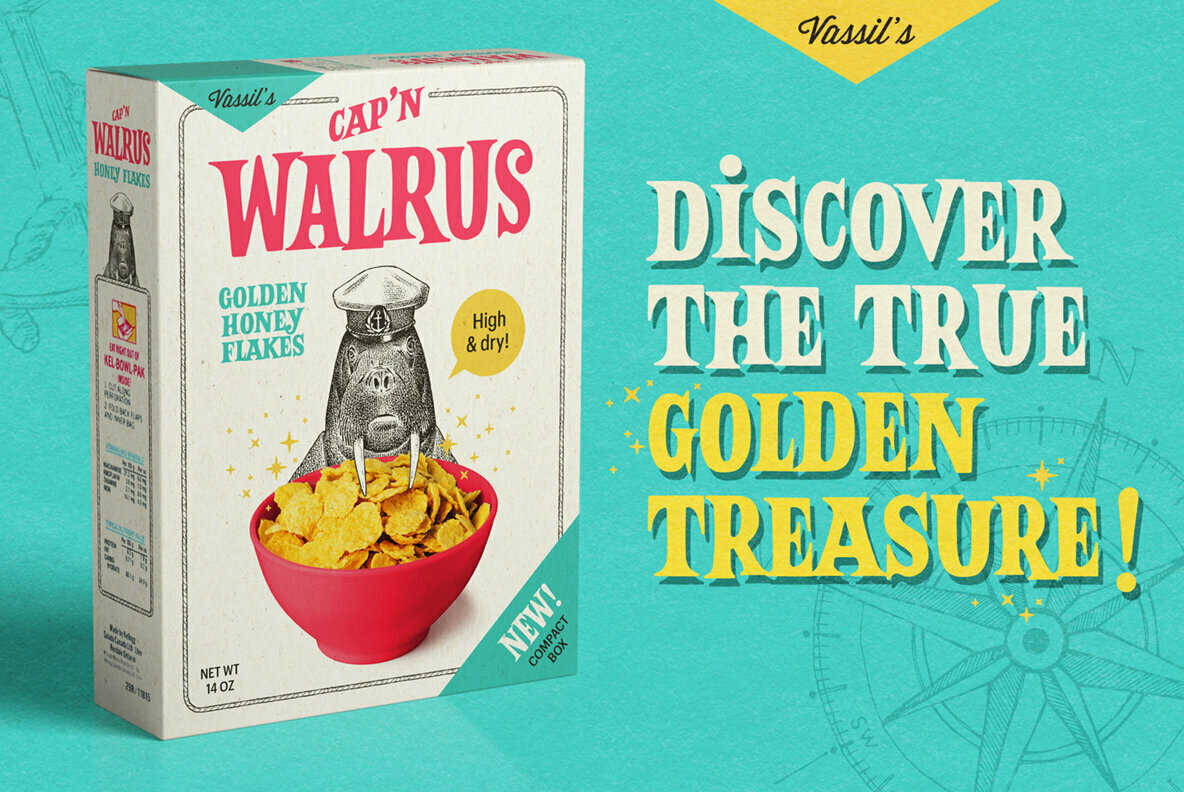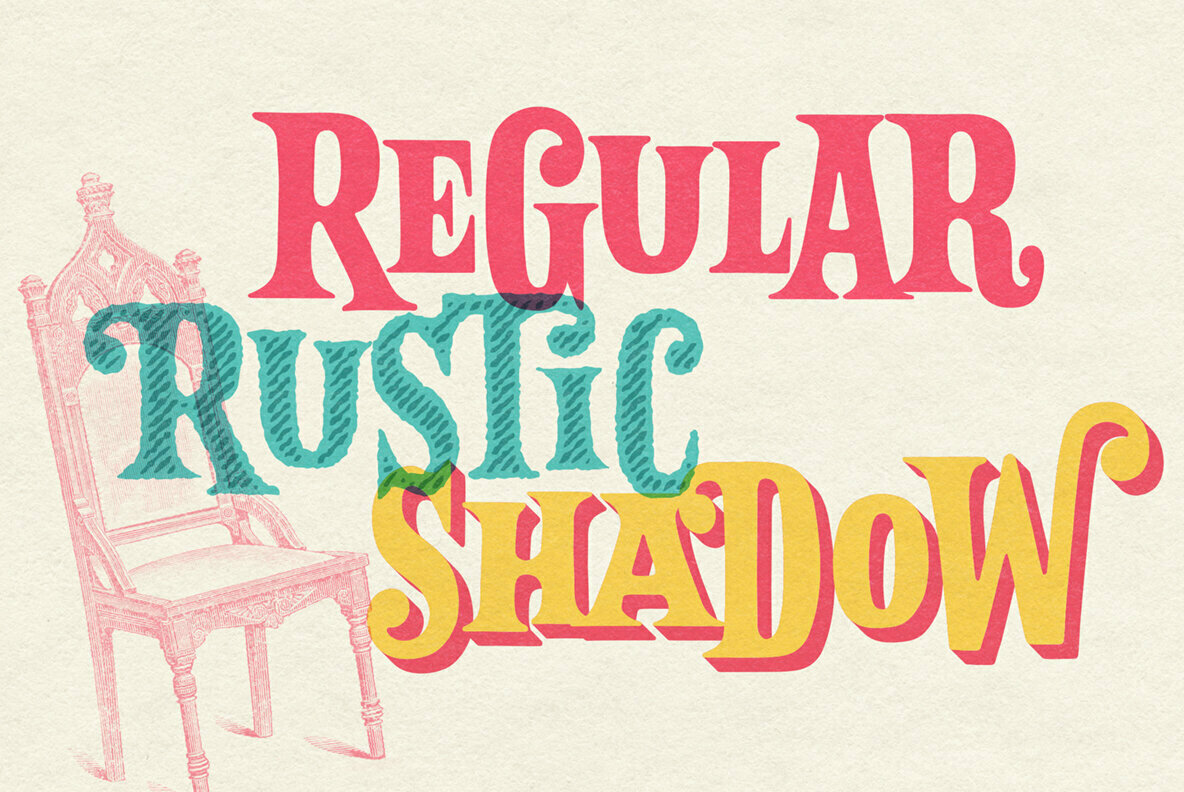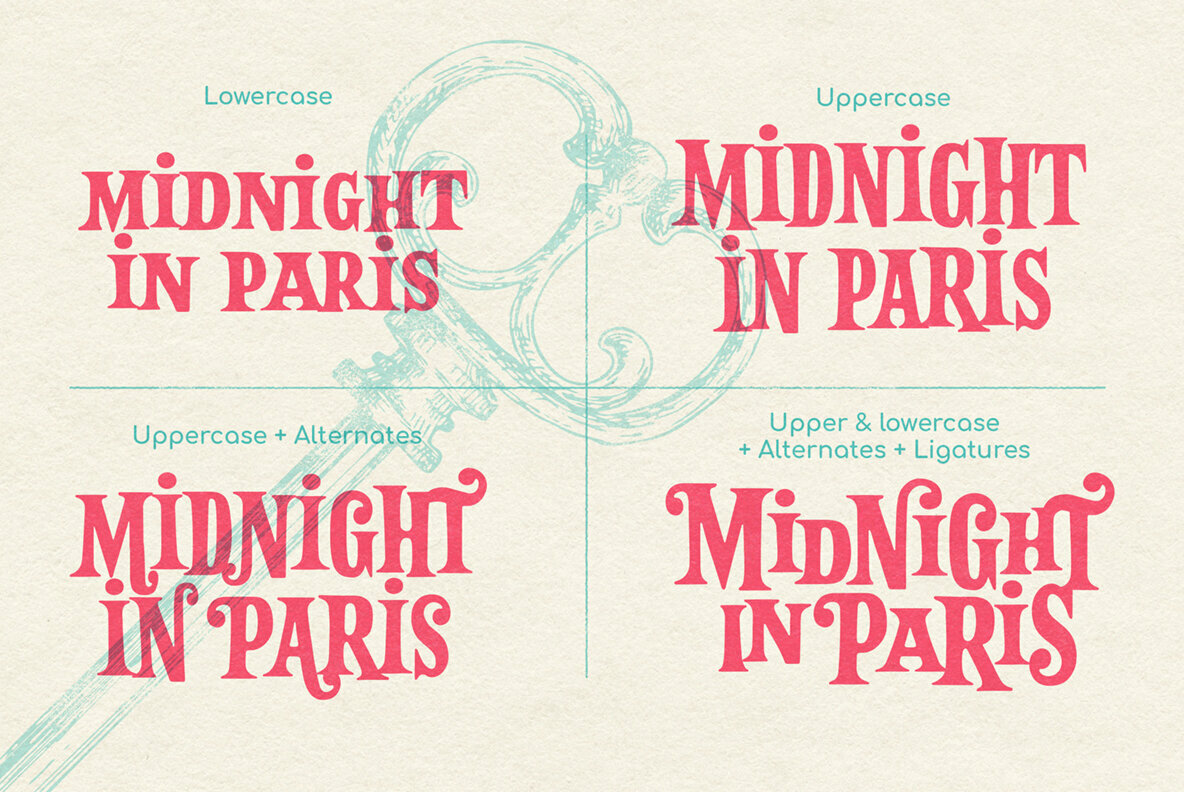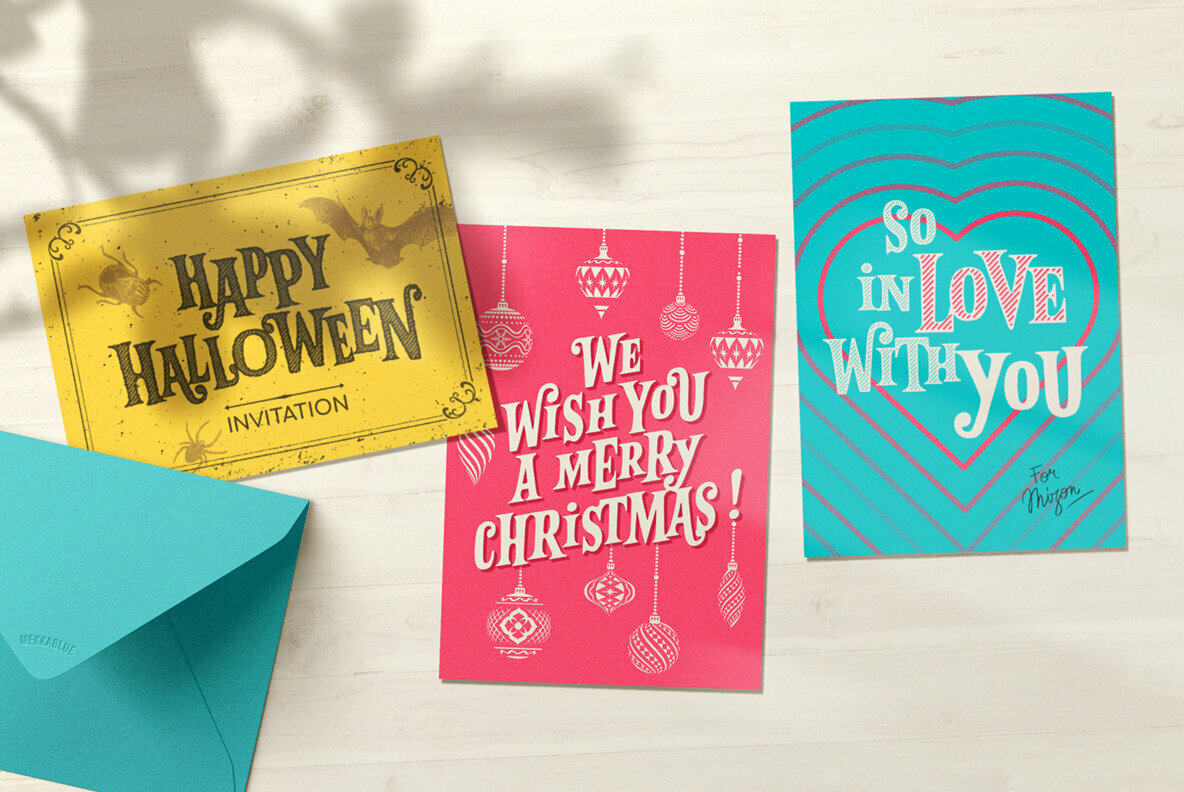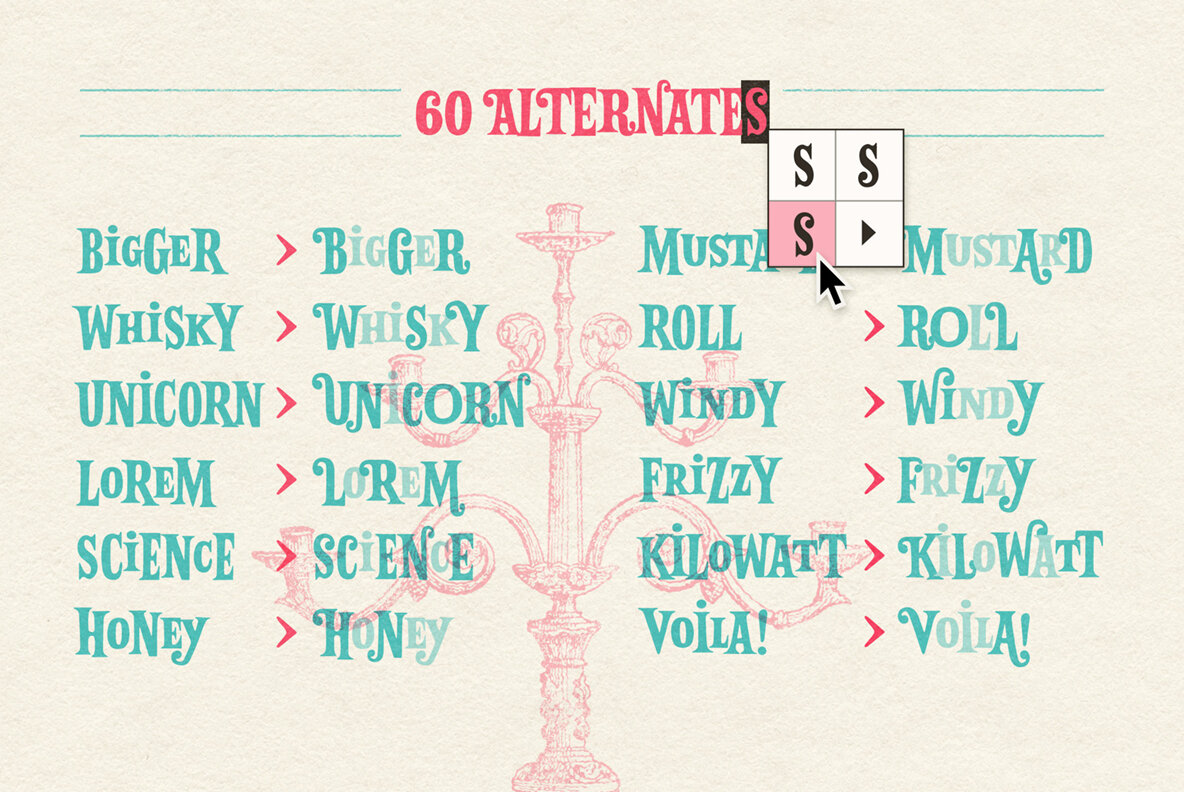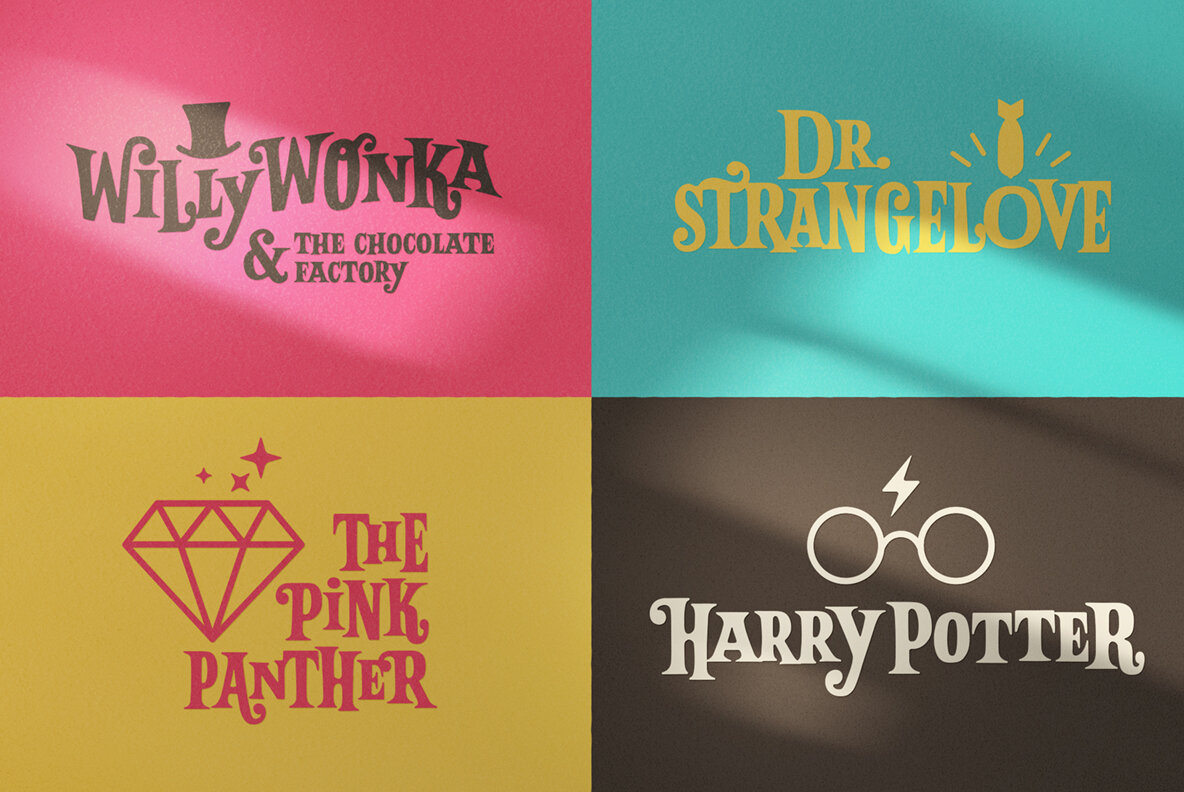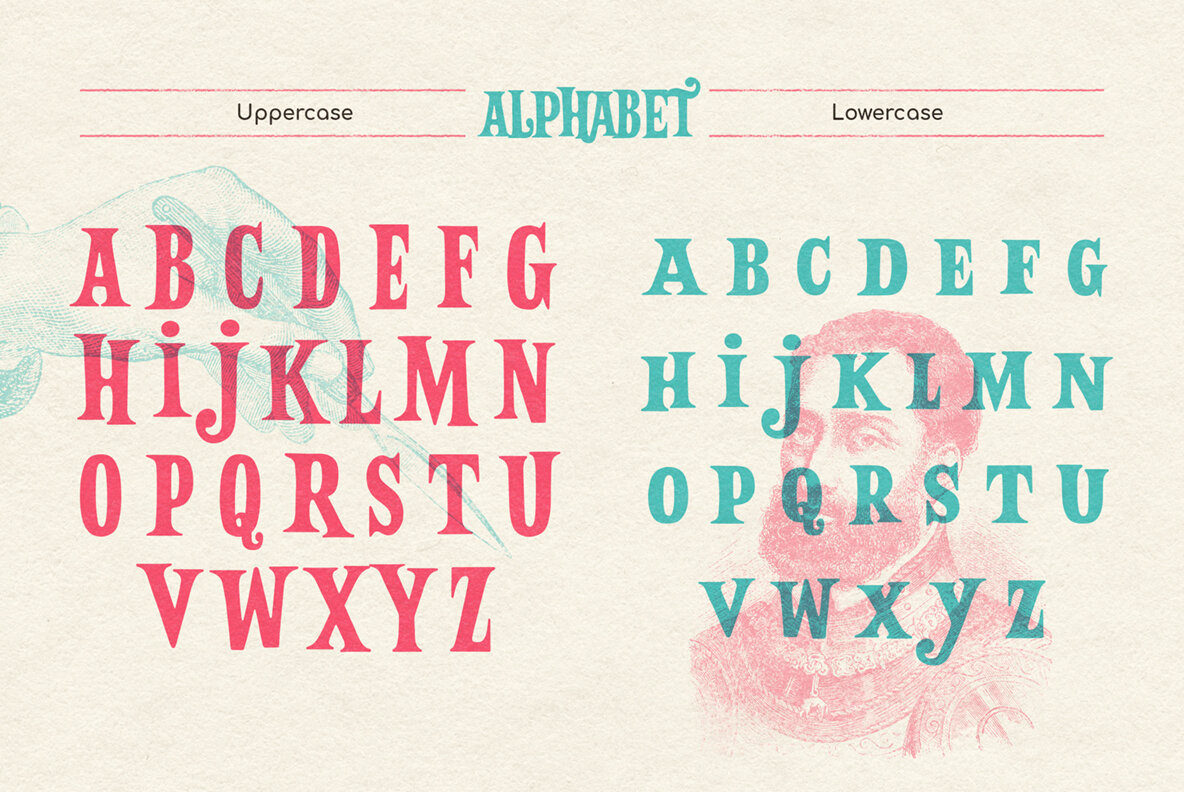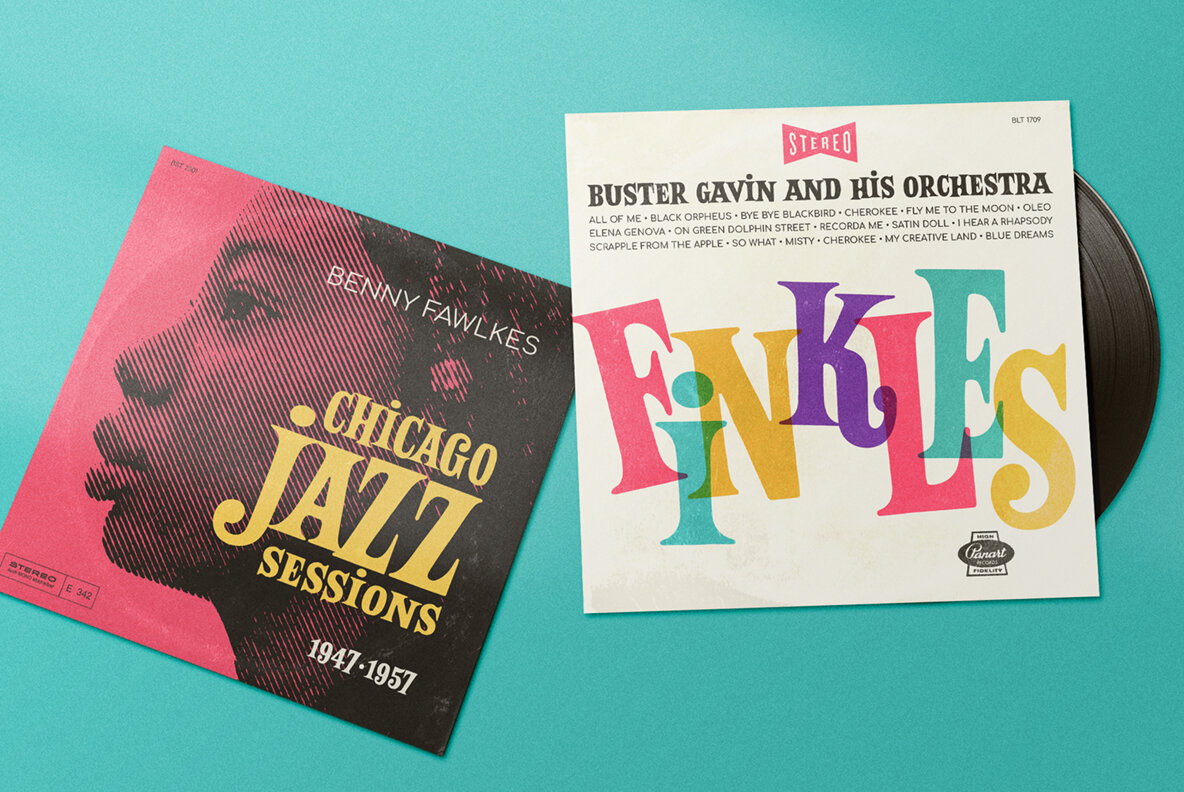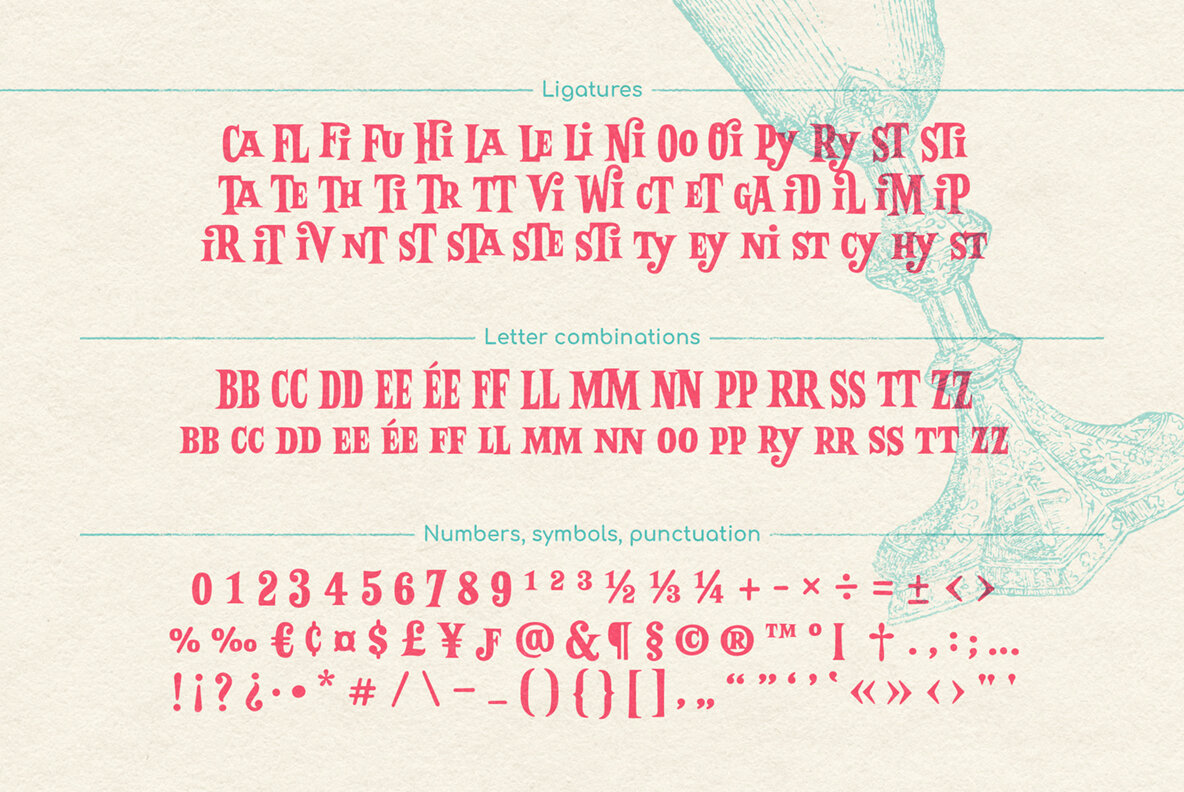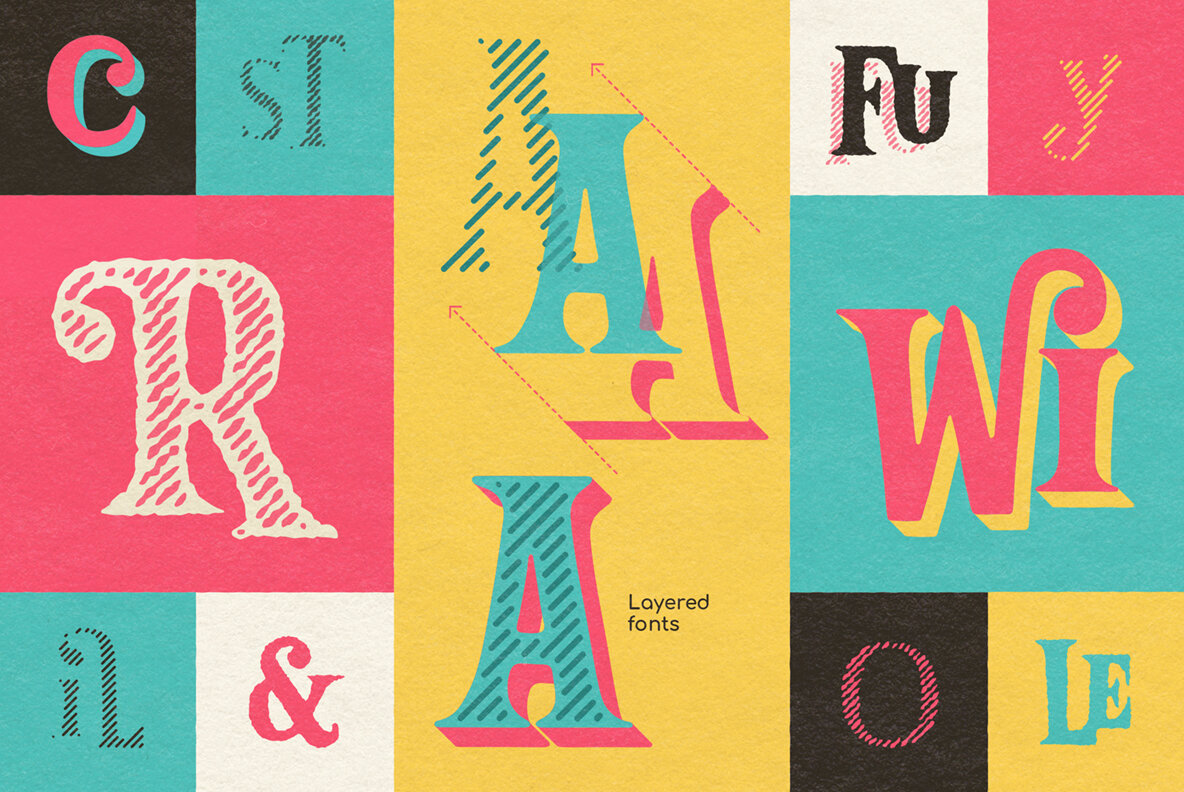
Balter Serif Font
Balter Serif is a hand-drawn layered typeface family inspired by sign painting, 1960’s movie posters and jazz album lettering. It can look fresh and modern or exquisitely vintage. Combine upper, lowercase and alternates to create a handmade custom lettered look, then layer the styles using colors to add value and depth to your designs !
Balter Serif works perfectly in short headlines. It is suitable to create a wide range of projects from posters to branding, logos, packaging, magazines and more.
• Uppercase & Small caps
• Numbers & Symbols
• International Glyphs
• 5 Different styles
• 60 Alternates & swashes
• 70 Ligatures
• 30 Letter combinations